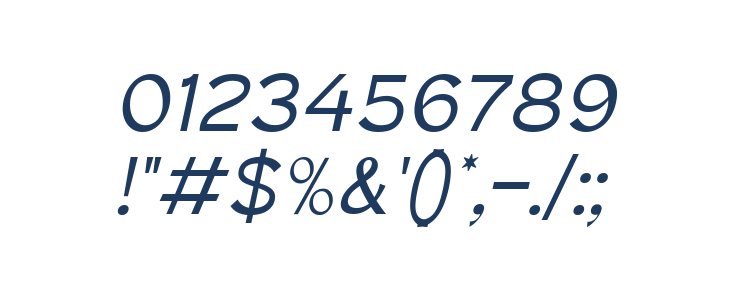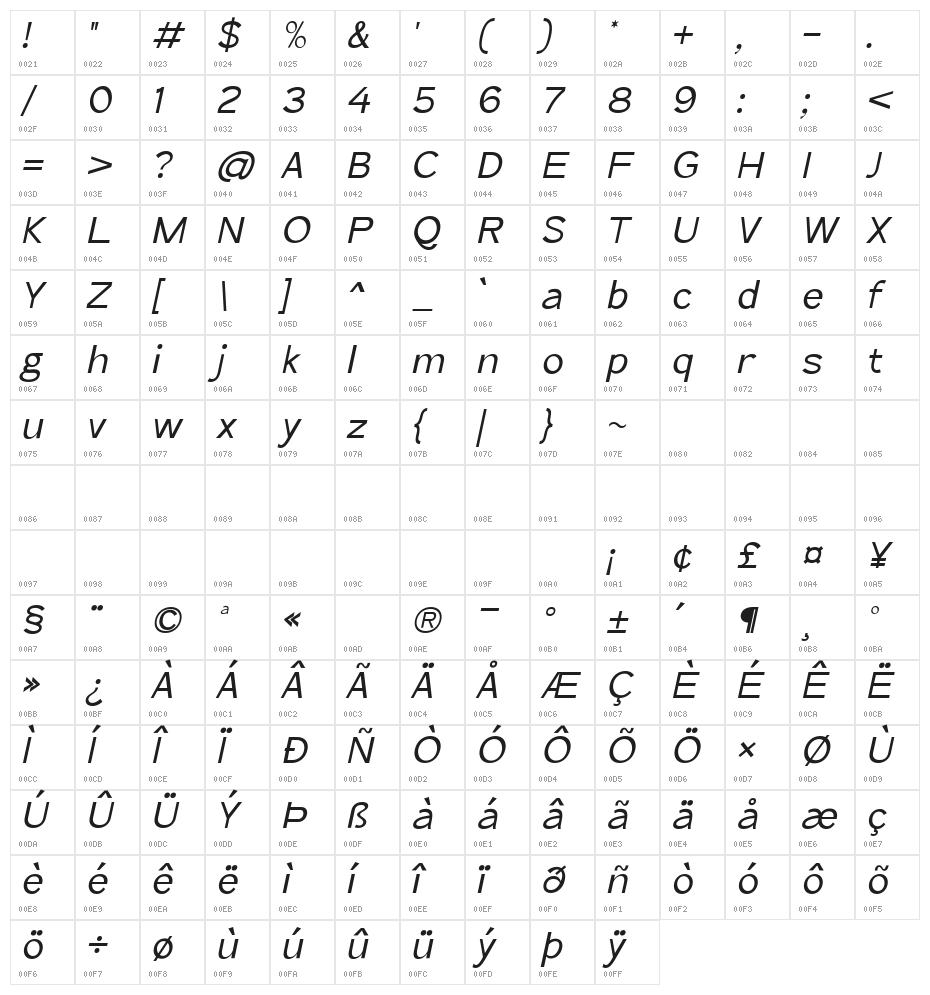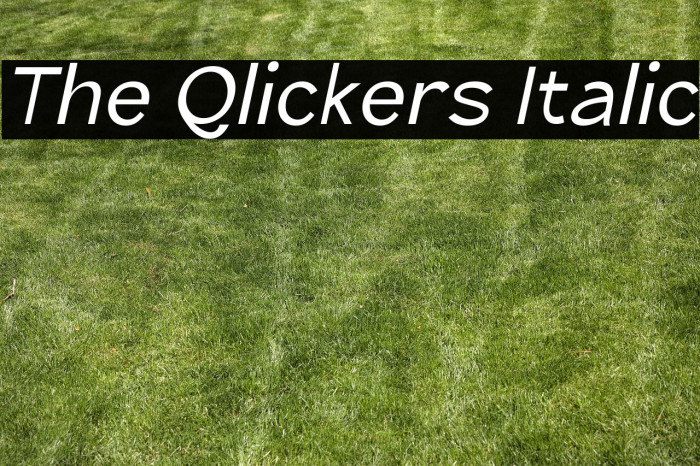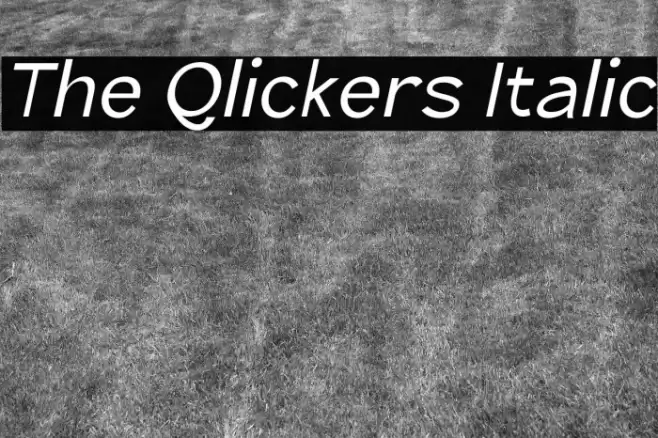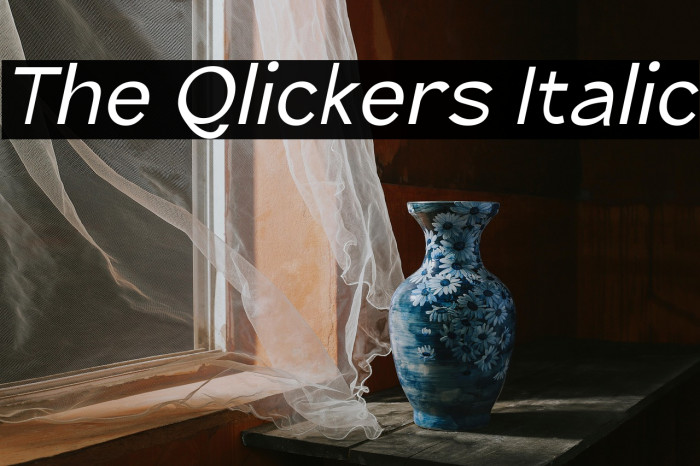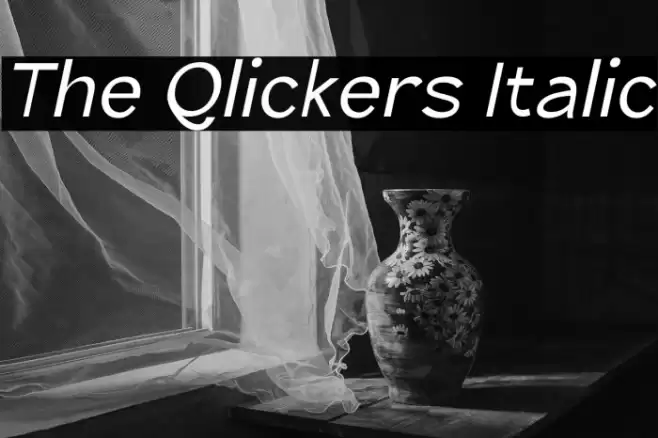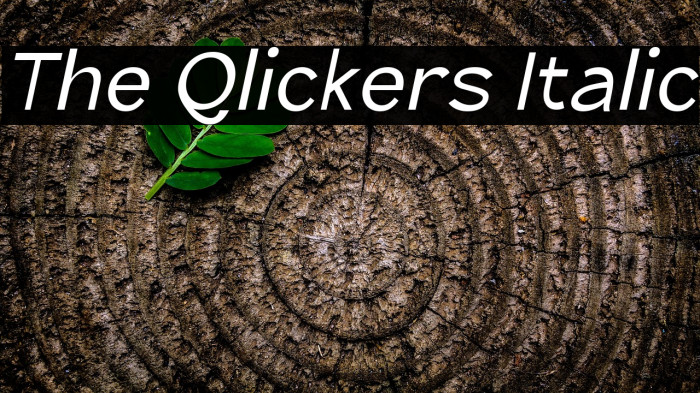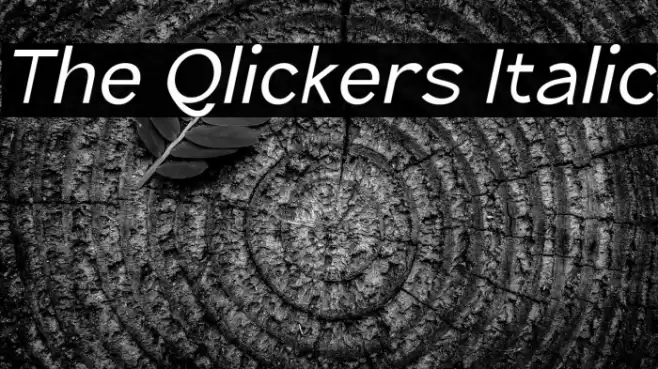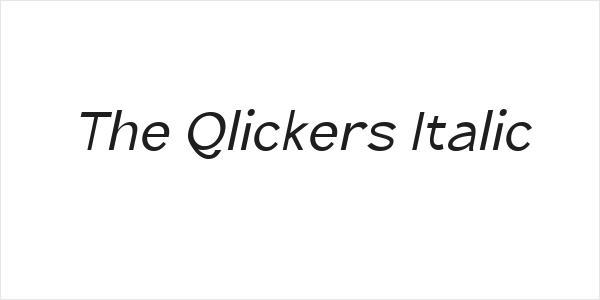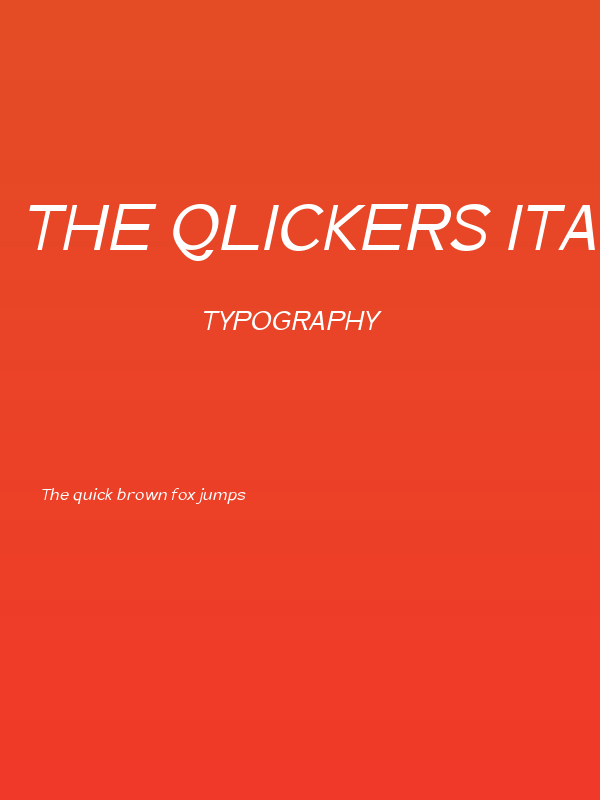
The Qlickers Italic Font
The Qlickers Italic Description
This font features a sleek and modern italic style, characterized by its smooth curves and clean lines. The uppercase and lowercase letters are well-proportioned, with a slight slant that adds a dynamic and elegant touch. The numerals are distinct and easy to read, maintaining the same italicized style. Special characters are thoughtfully designed, ensuring consistency across the entire character set. The overall appearance is professional and contemporary, making it suitable for a variety of design applications.
| Proposed Projects | Ideal for branding, editorial design, advertising, and digital media where a modern and elegant touch is desired. |